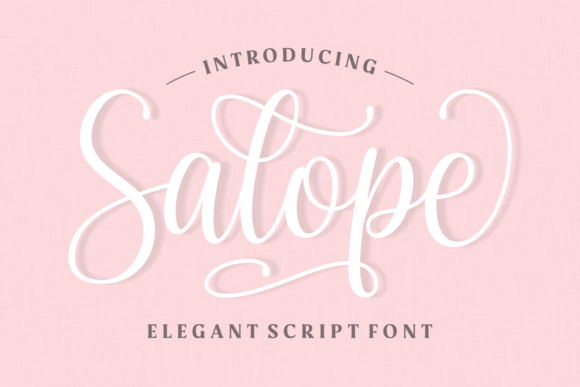
**Salope Script: The Epitome of Elegance and Sophistication**
In a world clamoring for originality and distinction, Salope Script emerges as a resplendent beacon of beauty and grace. This exquisite font, meticulously crafted by the font artisans at Creative Fabrica, ushers in a symphony of elegance that will elevate your creative endeavors to breathtaking new heights.
Salope Script is a script font of unparalleled refinement, exuding an air of sophistication that will leave you spellbound. Each letter dances across the page like a delicate brushstroke, infused with a timeless charm that evokes a sense of nostalgia and wonder. Whether you're designing wedding invitations, branding materials, or simply adding a touch of allure to your personal projects, Salope Script will effortlessly elevate your creations and leave a lasting impression.
Its graceful curves and sweeping flourishes evoke a sense of romance and whimsy, making it the perfect choice for projects that demand a touch of elegance and enchantment. Salope Script will effortlessly transform your words into works of art, adding a layer of sophistication that will elevate your projects above the mundane.
Unleash your creativity and embrace the boundless possibilities that Salope Script offers. Let your imagination soar as you craft designs that radiate with elegance and charm. From birthday invitations adorned with intricate details to posters that exude a vintage allure, Salope Script will add a touch of magic to every project you undertake.
Adorn your designs with a touch of timeless sophistication and watch as they blossom into masterpieces of creativity. Salope Script is the ultimate font for those who seek to leave an unforgettable impression, to captivate their audience with a symphony of visual delight.
**Features:**
* Exquisitely crafted script font
* Delicate brushstrokes and sweeping flourishes
* Timeless charm and vintage allure
* Perfect for wedding invitations, branding materials, posters, and more
* Adds a touch of elegance and enchantment to any project
**Benefits:**
* Elevate your creative projects with a touch of sophistication
* Captivate your audience with visually stunning designs
* Leave a lasting impression with your unique and elegant style
* Unleash your creativity and explore boundless possibilities